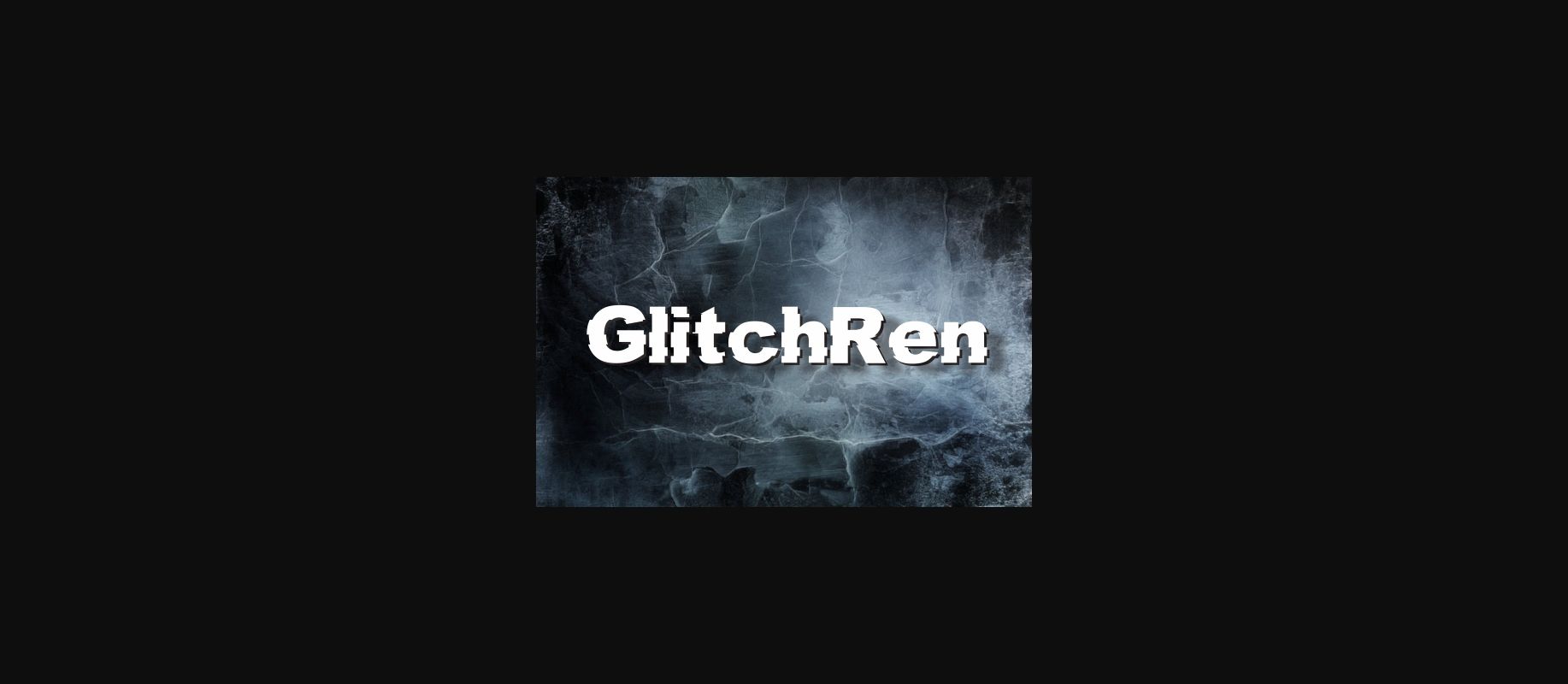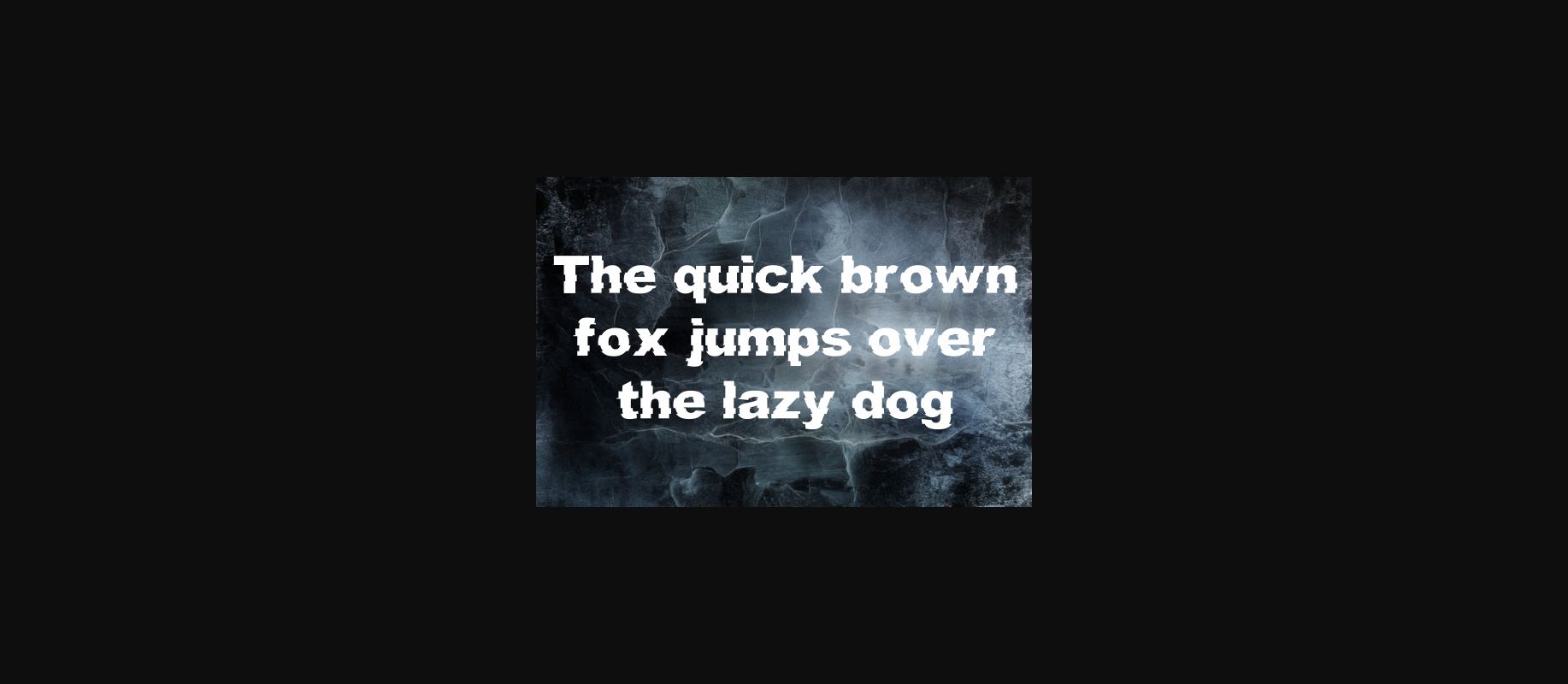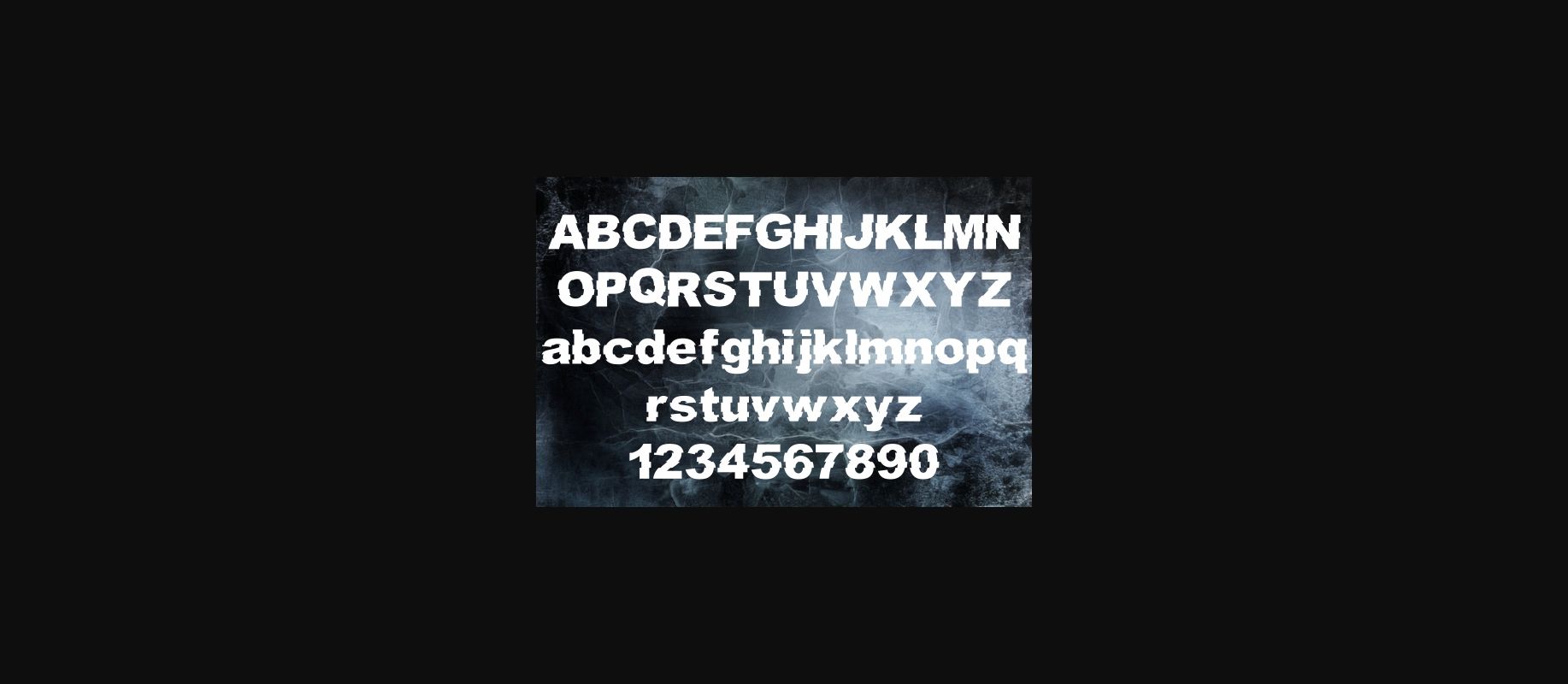
GlitchRen Font
About GlitchRen Font
GlitchRen is a cool and sleek decorative font with unique glitches. It will add a digital feel to any design project.